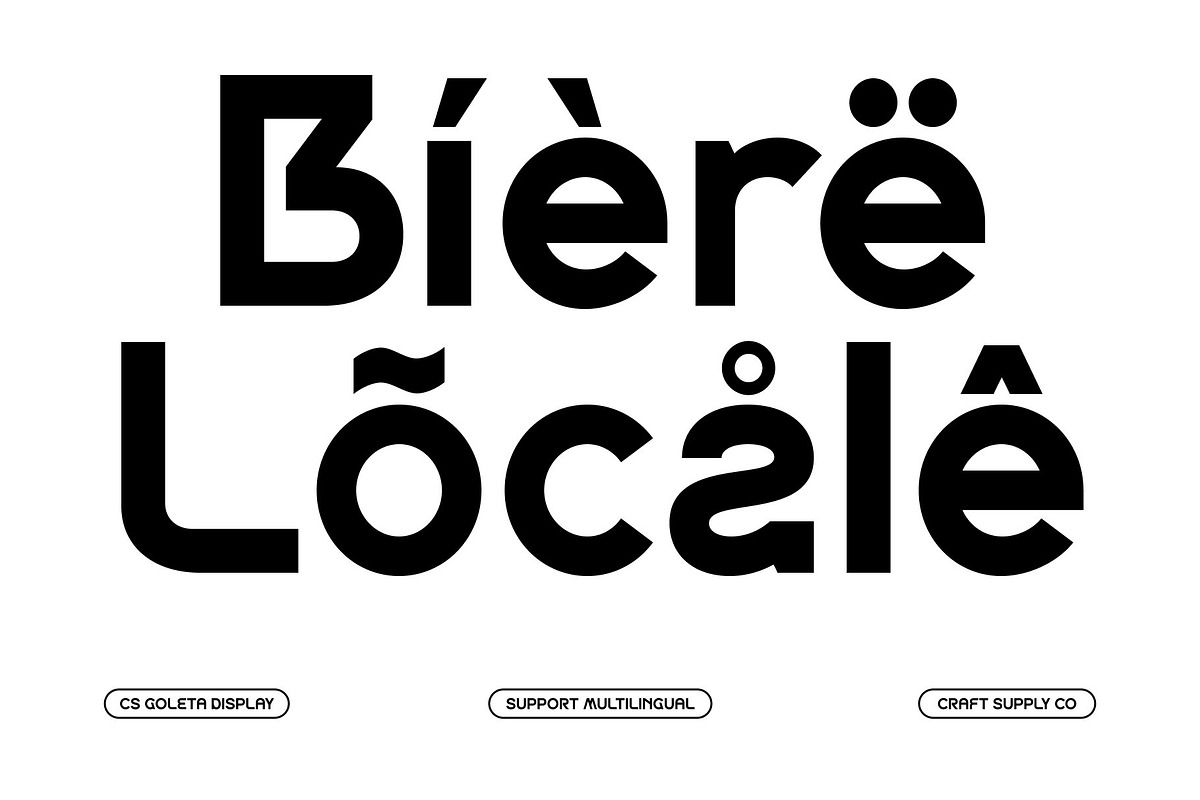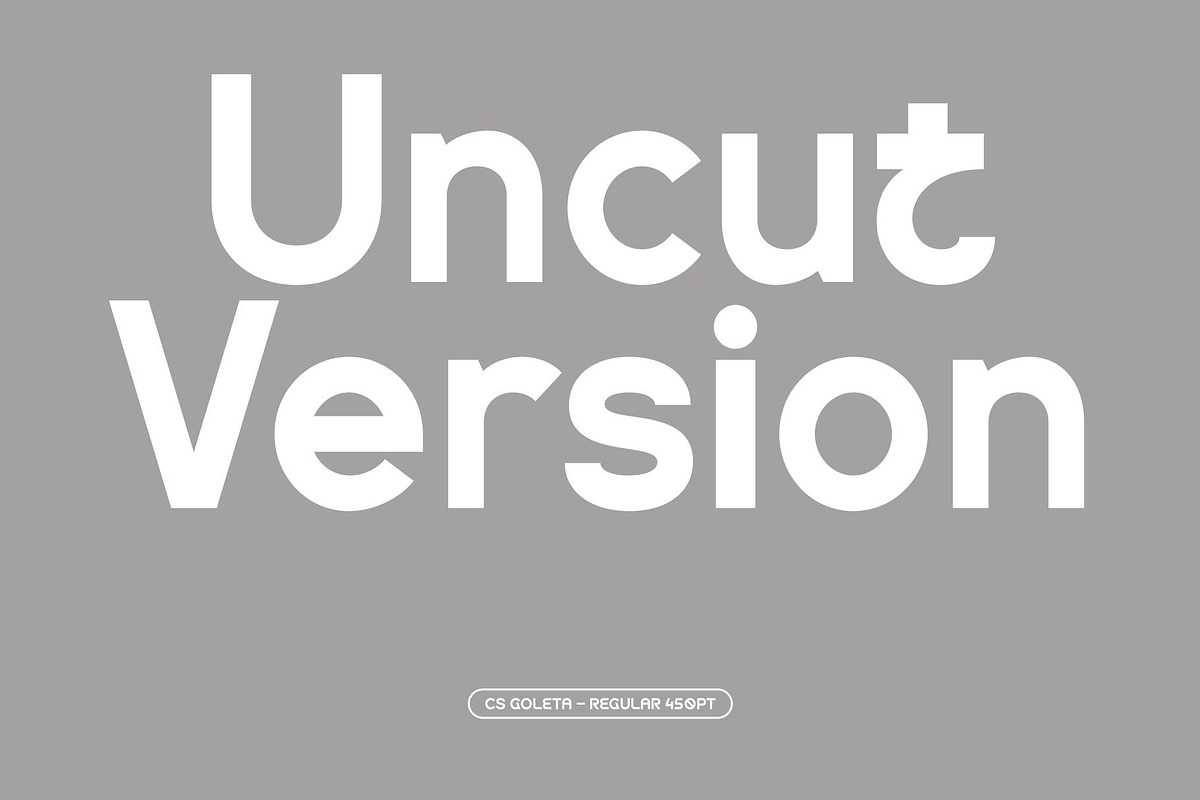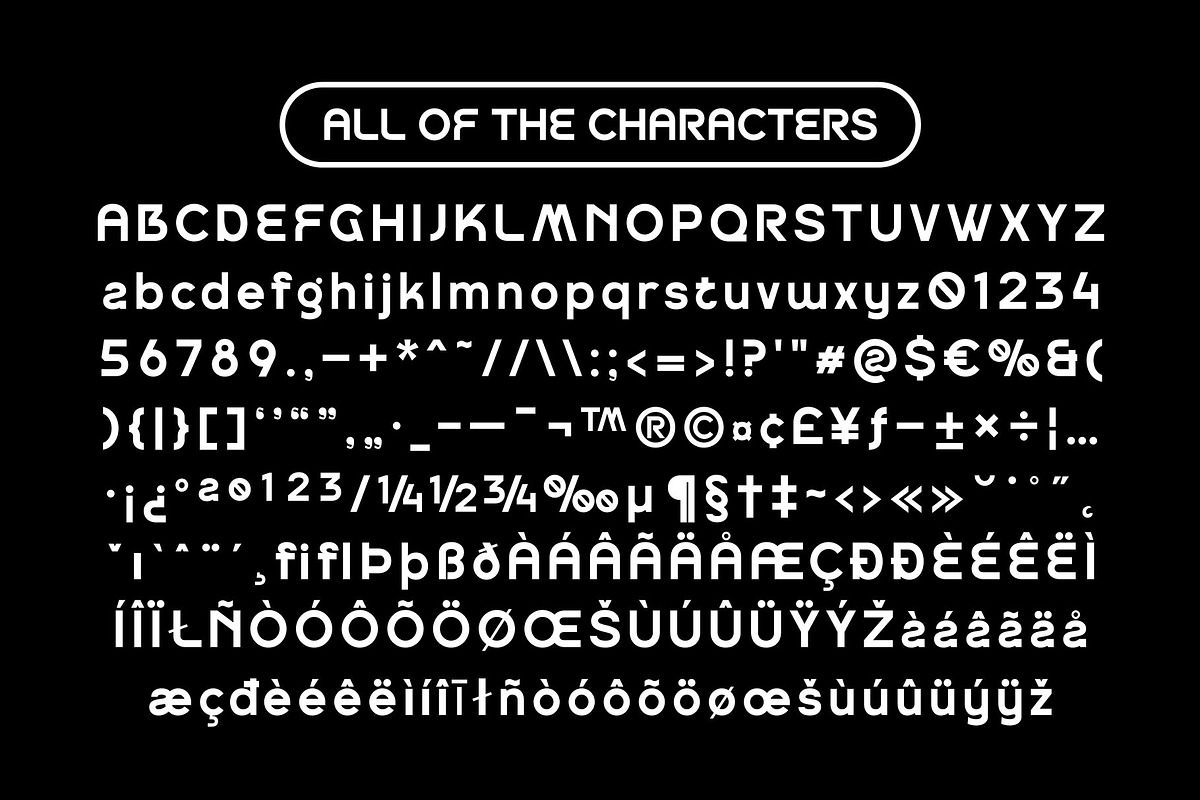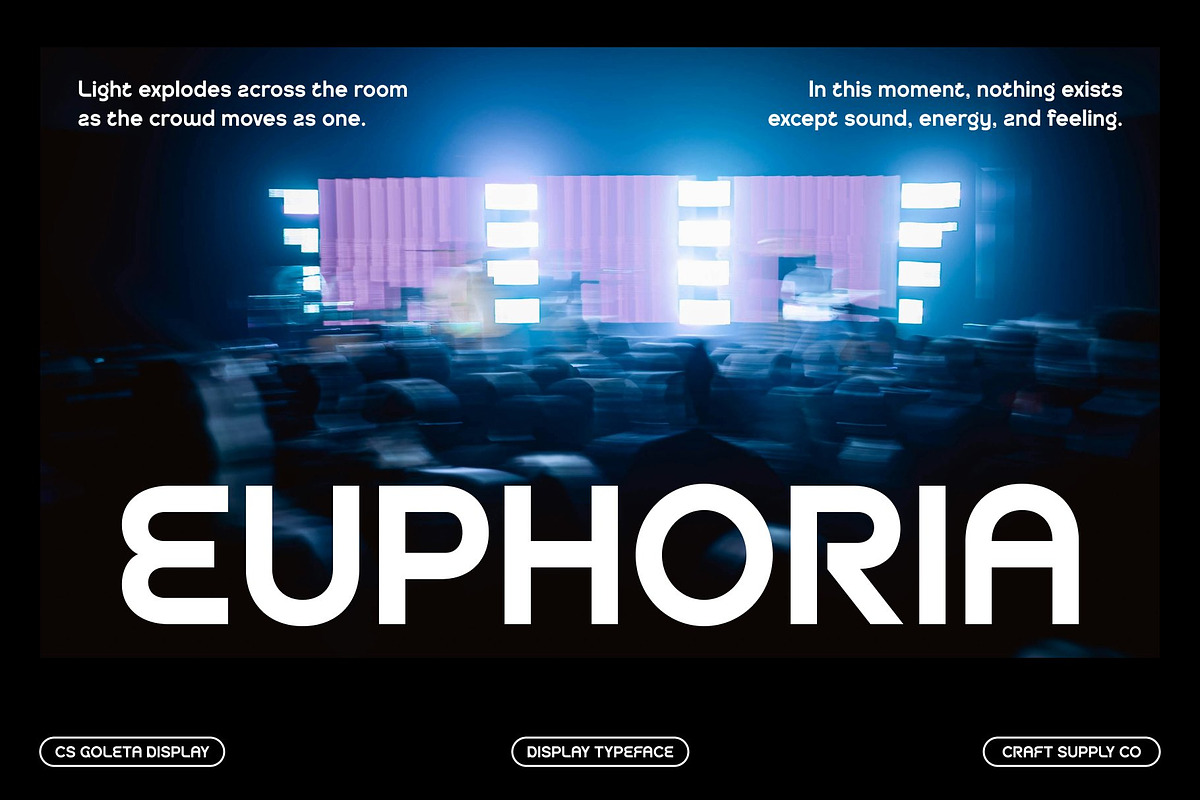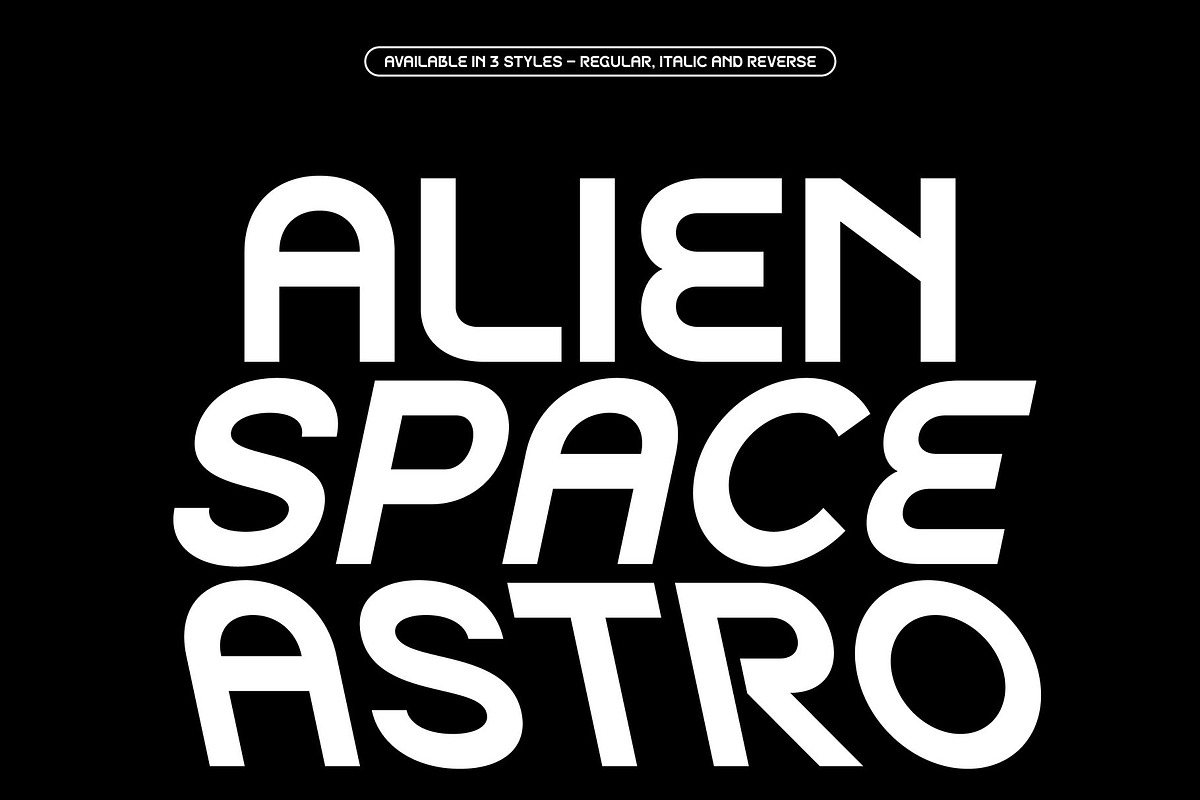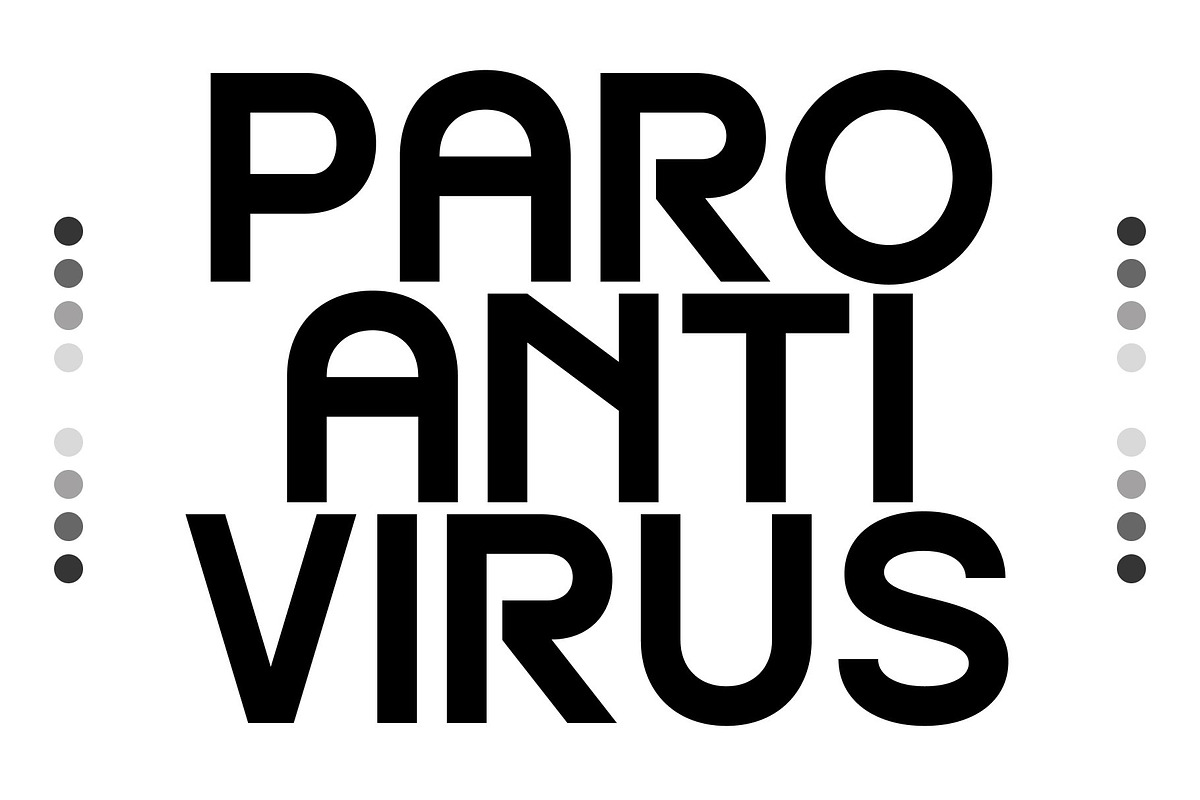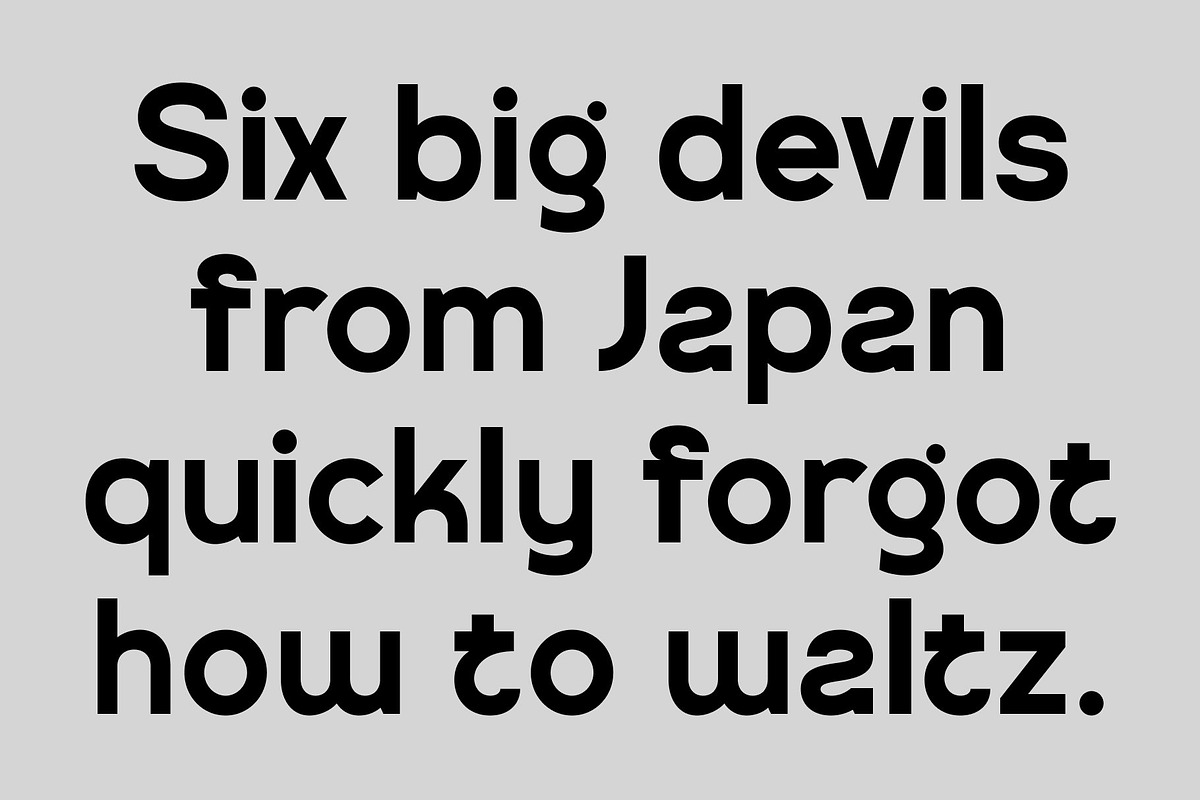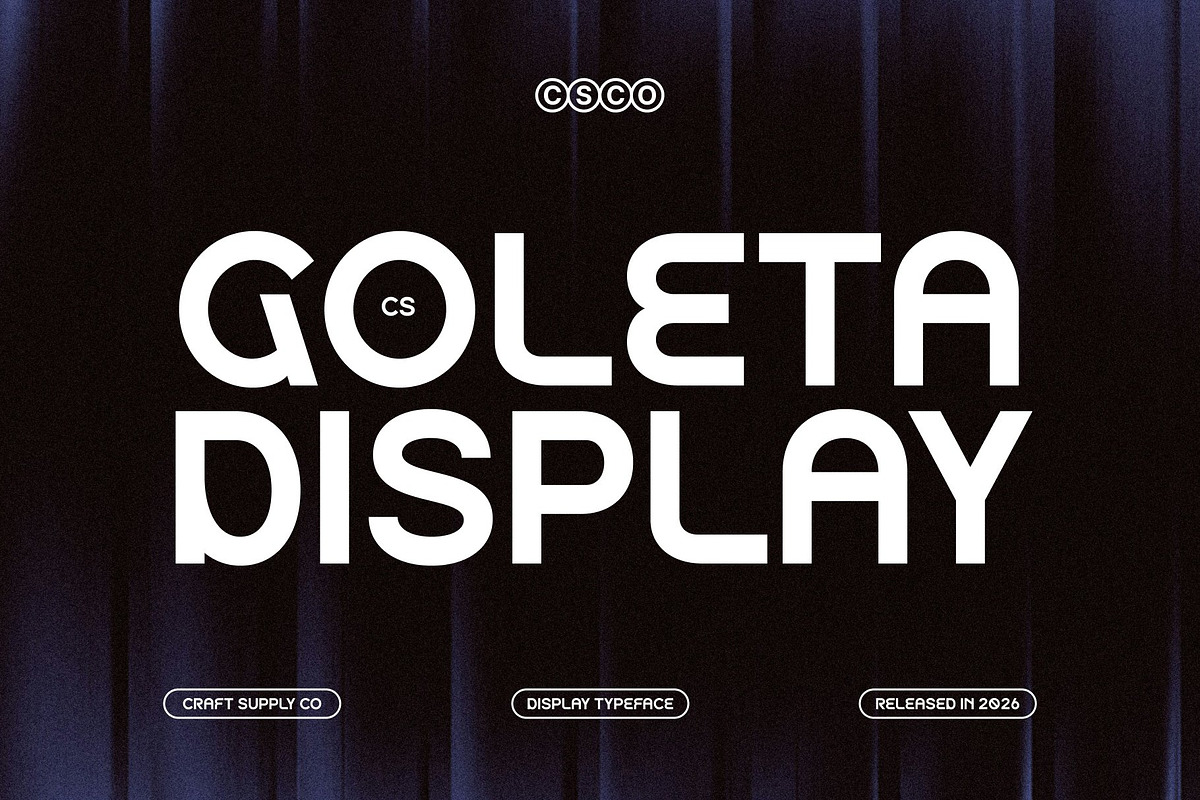
CS Goleta – Modern Sans Serif
CS Goleta – Modern Sans Serif with Geometric Charm
Modern Sans Serif with Clean Geometry This is a modern sans serif font built with crisp geometric lines that deliver a confident and contemporary presence. Its structured shapes create clarity and balance, making the font feel polished, professional, and visually striking in a wide range of design settings. The simplicity of its construction allows the typography to stand out while remaining highly readable.
Quirky Details with Fresh Personality Beyond its clean foundation, this font introduces subtle quirky touches that bring warmth and individuality to the letterforms. These playful nuances prevent the font from feeling rigid, giving it a lively and modern personality that feels approachable and unique without losing its professional tone.
Fresh Visual Impression The combination of geometry and quirky character results in a strong and fresh visual identity. This font instantly communicates modernity, creativity, and energy, making it ideal for projects that want to feel current and engaging. Its balanced proportions ensure consistent performance across both large and small text.
Perfect for Editorial, Branding, and Digital Projects This font shines in editorial layouts, branding systems, and digital design. Whether used for magazines, logos, websites, or social media graphics, this font delivers clarity, personality, and a contemporary style that elevates modern creative projects.
CS Goleta Regular
CS Goleta Italic
CS Goleta Reverse Italic